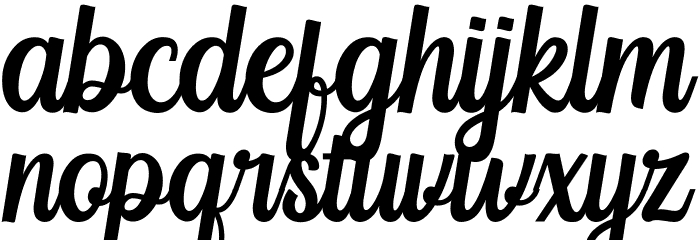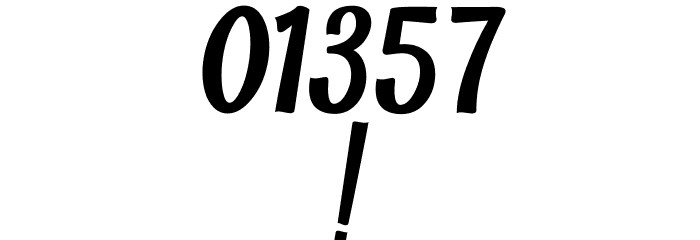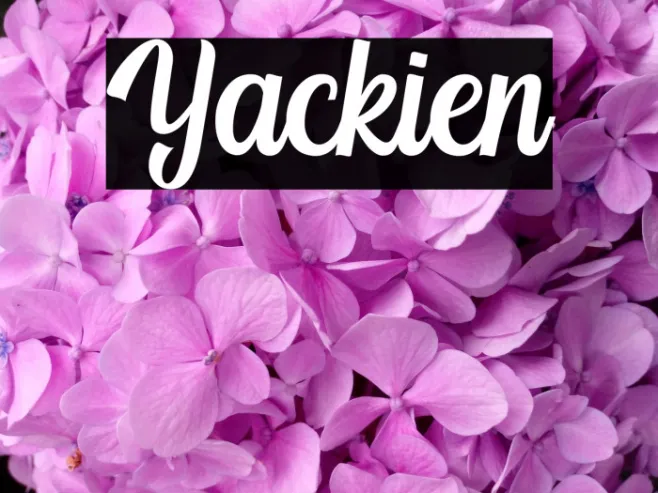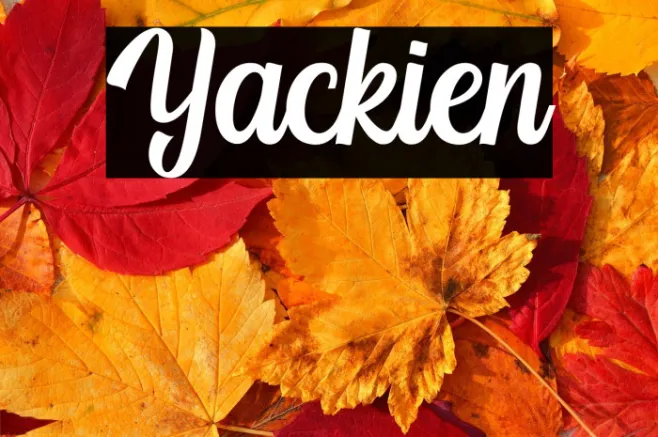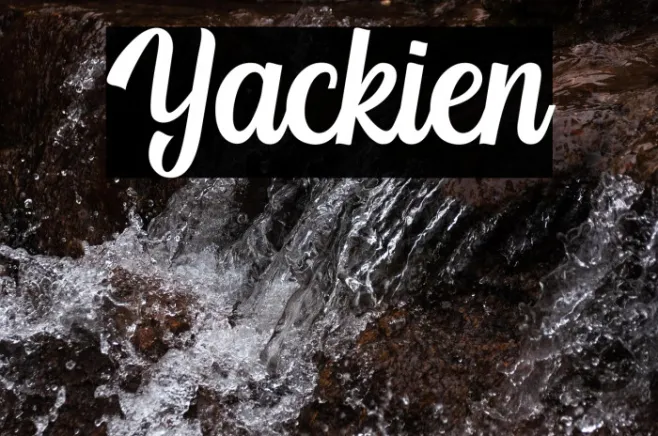
Yackien Font
This font features a bold, cursive style with a dynamic and flowing appearance. The uppercase letters are slightly slanted, giving a sense of movement and elegance. The lowercase letters maintain a consistent flow, with smooth curves and a connected script style. The numbers are bold and clear, matching the overall aesthetic. The special characters are designed to complement the letters, maintaining the same bold and cursive characteristics. This font is ideal for creating eye-catching designs that require a touch of sophistication and flair.
A bold, cursive font with a dynamic and flowing style.
- Font: Yackien
- Proposed Projects: Ideal for wedding invitations, branding, logos, and elegant packaging designs.
- Category: Script
- Use Case: Logos, Headlines, Invitations